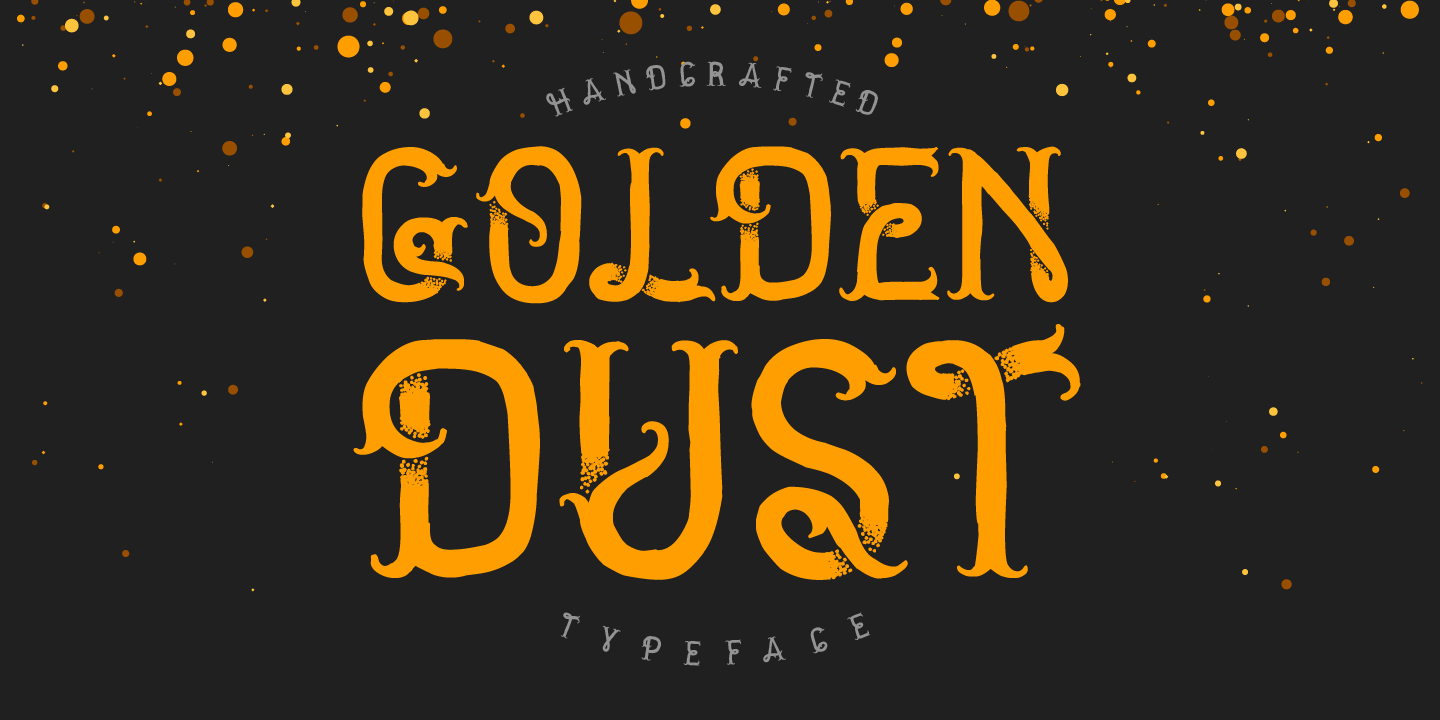
Golden Dust Font is perfect for luxury brand logos, premium product packaging, jewelry advertising, high-end event invitations, cosmetic branding, fashion magazine headlines, award ceremony materials, exclusive restaurant menus, luxury hotel signage, and upscale retail displays. This glamorous typeface adds sophisticated sparkle and premium appeal to any elite design project.
What makes Golden Dust Font exciting is its shimmering metallic aesthetic that captures the essence of luxury and exclusivity through elegant letterforms with subtle glittering effects. The font features refined curves, delicate details, and a premium finish that creates an immediate sense of opulence and high-end quality. Its sophisticated character makes brands appear more prestigious while maintaining excellent readability, making it perfect for luxury markets that demand both beauty and functionality.
The Golden Dust Font family includes light, regular, medium, and bold weights, each featuring the signature golden shimmer effect with varying intensities. The collection also offers ornamental variants and decorative elements that enhance the luxurious appearance for special applications and premium branding needs.
Elevate your premium designs with Golden Dust Font Free Download and transform ordinary projects into extraordinary luxury experiences. This meticulously crafted typeface delivers the perfect combination of elegance and prestige, making it ideal for high-end branding and exclusive marketing materials. The font's extensive character support includes luxury symbols and international language compatibility, ensuring seamless integration into global premium markets. Whether you're creating luxury brand identities, upscale advertising campaigns, or exclusive event materials, this font provides the golden touch that distinguishes premium brands from ordinary competitors.